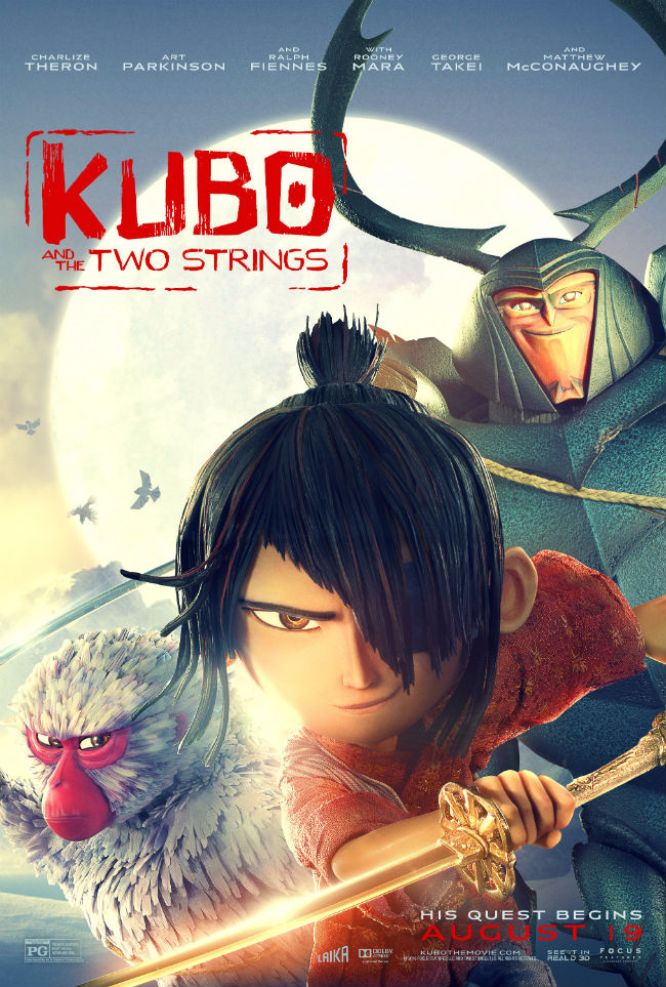
Kubo and the Two Strings Font
ActionKubo and the Two Strings is a 2016 American 3D stop-motion fantasy action adventure film directed by Travis Knight. The story follows a young boy named Kubo, using a magical shamisen ends up on a quest to confront his mother's wicked twin sister and his cruel grandfather, the Moon King.